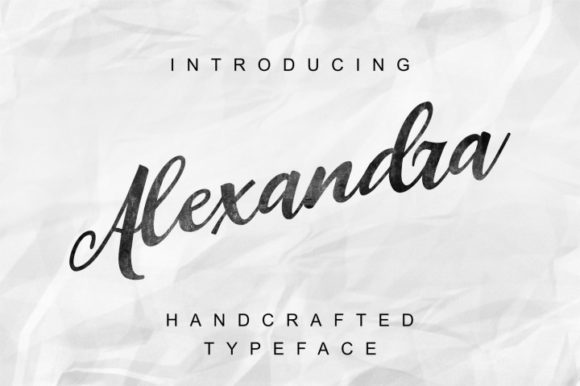
Aleksandra Font: Elevate Your Design with Elegance and Sophistication
The Aleksandra font is a stunning handcrafted script that embodies the perfect blend of elegance and striking style. This beautiful font is designed to make your design stand out from the crowd, adding a touch of sophistication and refinement to any project. In this article, we’ll delve into the world of Aleksandra font, exploring its features, benefits, and uses, as well as providing tips and inspiration for designers and crafters.
The Story Behind Aleksandra Font
The Aleksandra font is a labor of love, carefully crafted by skilled typographers who poured their hearts and souls into creating a truly unique and exceptional typeface. With its elegant, cursive strokes and precise lettering, Aleksandra exudes a sense of luxury and refinement, making it perfect for high-end designs, branding, and marketing materials.
Key Features of Aleksandra Font
- Handcrafted with love: Each letter has been carefully crafted to ensure a personal touch, giving Aleksandra a unique and distinctive feel.
- Elegant and sophisticated: Aleksandra’s cursive strokes and refined lettering make it perfect for designs that require a touch of luxury and sophistication.
- Highly legible: Despite its elegant style, Aleksandra remains highly legible, even at smaller font sizes, making it suitable for a wide range of applications.
- Multilingual support: Aleksandra supports multiple languages, making it a versatile font for designers working on international projects.
Benefits of Using Aleksandra Font
So, why choose Aleksandra font for your next design project? Here are just a few benefits of using this stunning typeface:
- Adds elegance and sophistication: Aleksandra’s refined style instantly elevates your design, adding a touch of luxury and refinement.
- Stand out from the crowd: With its unique, handcrafted style, Aleksandra helps your design stand out in a crowded marketplace.
- Versatile and flexible: Aleksandra can be used for a wide range of applications, from branding and marketing materials to packaging and web design.
- Easy to use: Aleksandra is a straightforward font to use, even for designers who are new to working with script typefaces.
Inspiration and Ideas for Using Aleksandra Font
Now that we’ve explored the features and benefits of Aleksandra font, let’s take a look at some inspiring ways to use this beautiful typeface:
- Wedding and event design: Aleksandra’s elegant style makes it perfect for wedding invitations, event branding, and stationery.
- Luxury branding: Use Aleksandra to create high-end branding materials, such as logos, business cards, and letterheads.
- Packaging design: Aleksandra’s sophisticated style is ideal for packaging design, particularly for luxury food, beauty, and fashion products.
- Web design: Add a touch of elegance to your website with Aleksandra, perfect for headers, titles, and other design elements.
Tips for Working with Aleksandra Font
To get the most out of Aleksandra font, here are a few tips to keep in mind:
- Use it sparingly: Aleksandra’s elegant style can be overwhelming if overused. Use it sparingly to create emphasis and add visual interest.
- Pair it with contrasting fonts: Combine Aleksandra with contrasting fonts to create visual interest and add depth to your design.
- Experiment with colors and textures: Aleksandra looks stunning in a range of colors and textures. Experiment to find the perfect combination for your design.
The Aleksandra font is a true gem, offering a unique blend of elegance, sophistication, and style. Whether you’re a designer, crafter, or DIY enthusiast, Aleksandra is the perfect choice for adding a touch of luxury and refinement to your projects. With its highly legible and versatile design, Aleksandra is sure to become a favorite in your font collection.